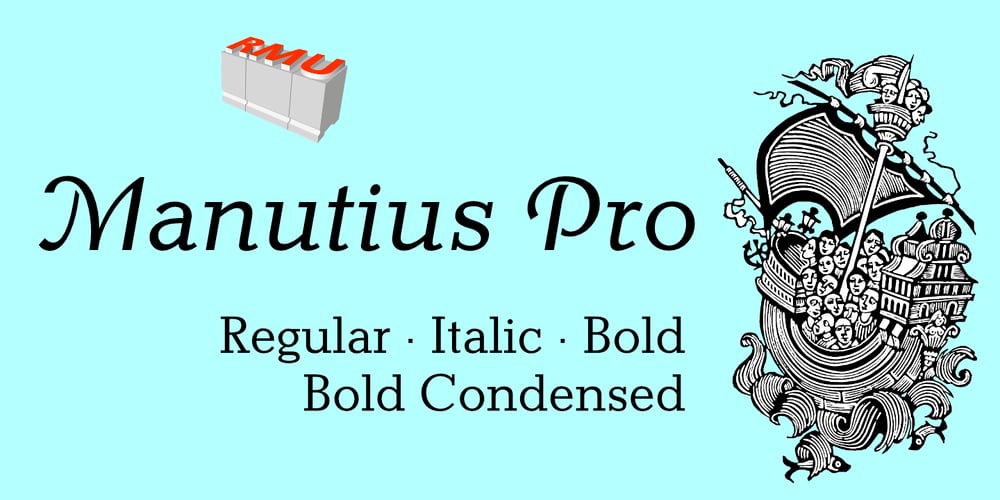
Manutius Pro Font Family was designed by Ralph M. Unger and published by RMU. Manutius Pro contains 4 styles and family package options. A pleasant looking slab serif font family which was originally released by the Wagner foundry as hot-metal fonts. These fonts avoid the appearance of being constructed, and this is underlined by the beautiful swash caps in the Italic style.